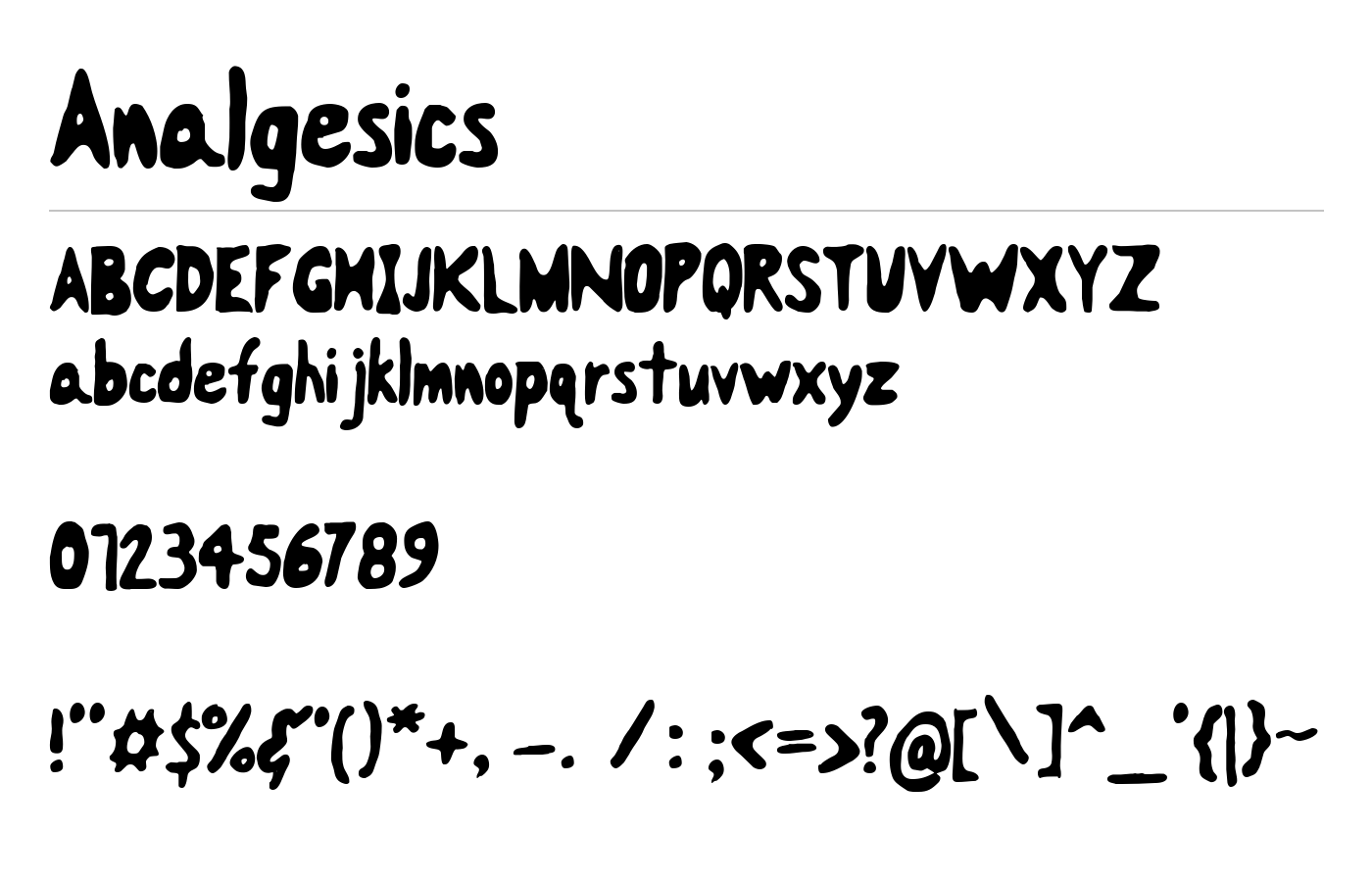
Analgesics is a bold, playful sans serif font with a hand-drawn, organic feel characterized by rounded, uneven shapes and thick, soft strokes. Its casual, slightly quirky style makes it ideal for fun, informal designs like children's books, creative branding, and eye-catching headlines where a warm, approachable personality is desired. This font works best in display settings that aim to stand out with a unique, friendly vibe.
Analgesics Font